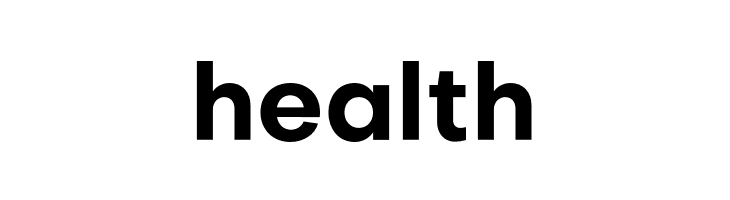
• Cadman
A modern, clean sans-serif font with balanced spacing and consistent stroke width.
• Metropolis-Medium
• Metropolis-ExtraLight
A geometric sans-serif font with a clean, modern aesthetic and uniform stroke widths.
• FivoSans-LightOblique
A sleek, modern sans-serif font with an oblique style and light weight.
• Objectivity-RegularSlanted
A modern, slanted typeface with clean lines and excellent readability.
• Objectivity-Bold
• Octarine-Light
A modern, sans-serif font with smooth, rounded edges and uniform stroke width.
• Octarine-LightOblique
A sleek, modern, and oblique font with a light weight and minimalistic design.
• Grenze Regular
A serif typeface combining traditional and modern elements with sharp serifs and strong vertical stress.
• Beatrix Antiqua SemiBold
A classic serif font with semi-bold weight, offering elegance and readability.